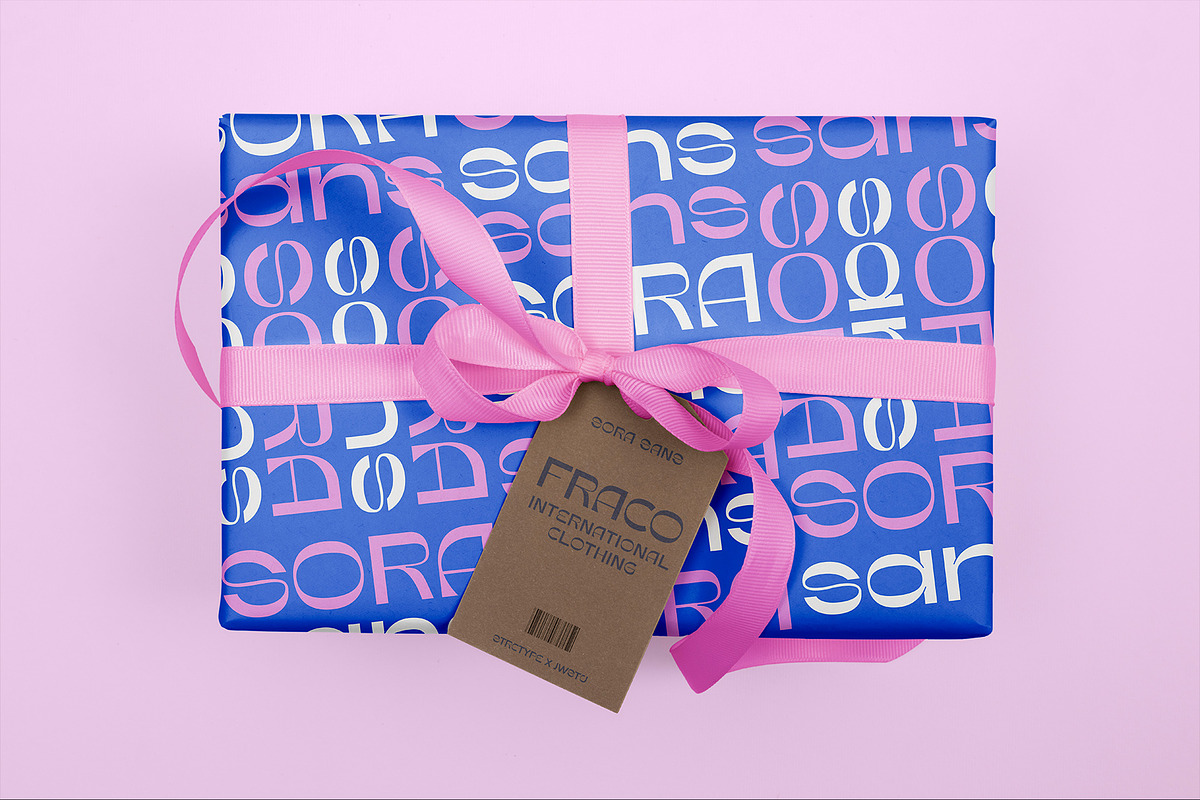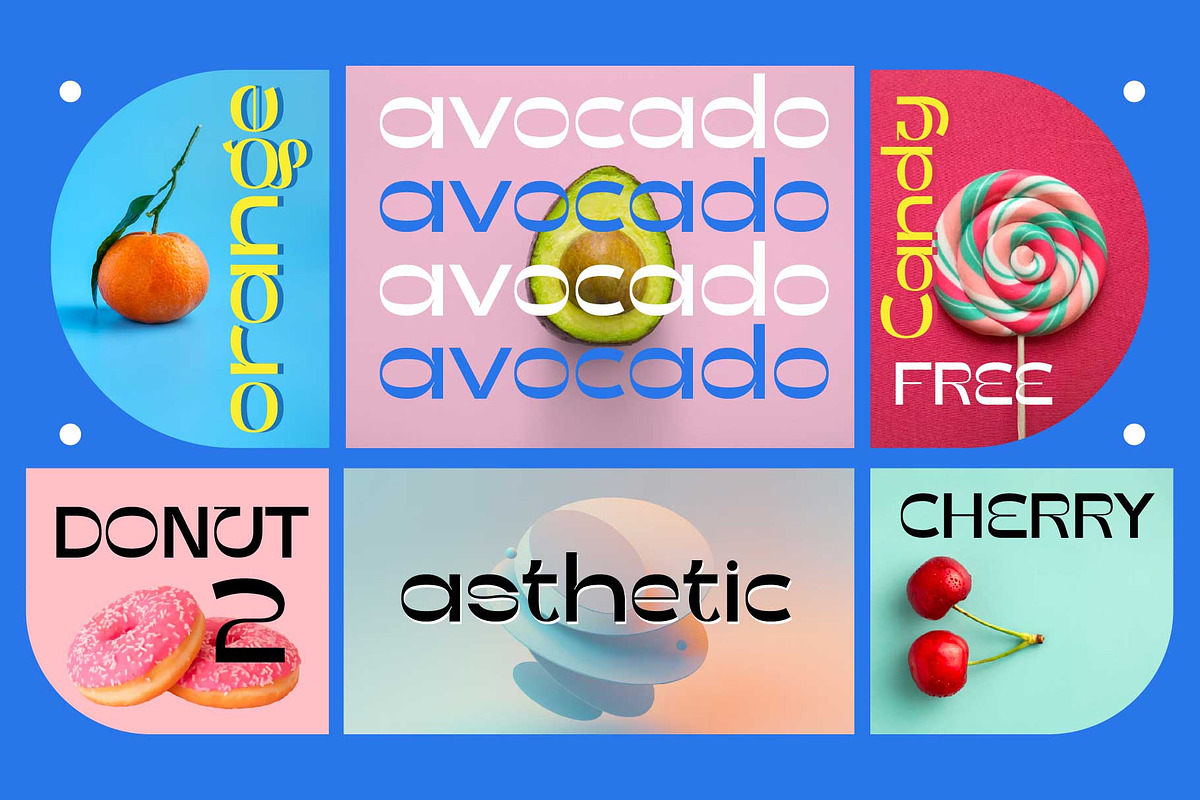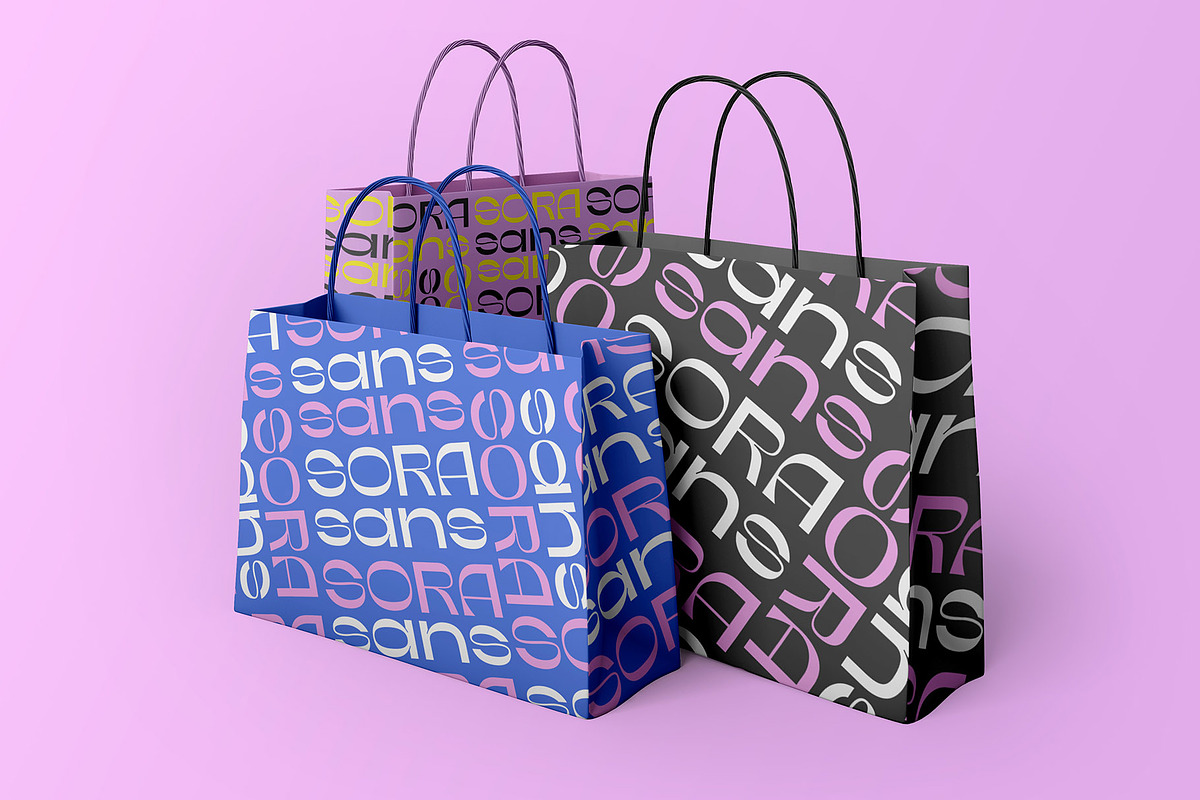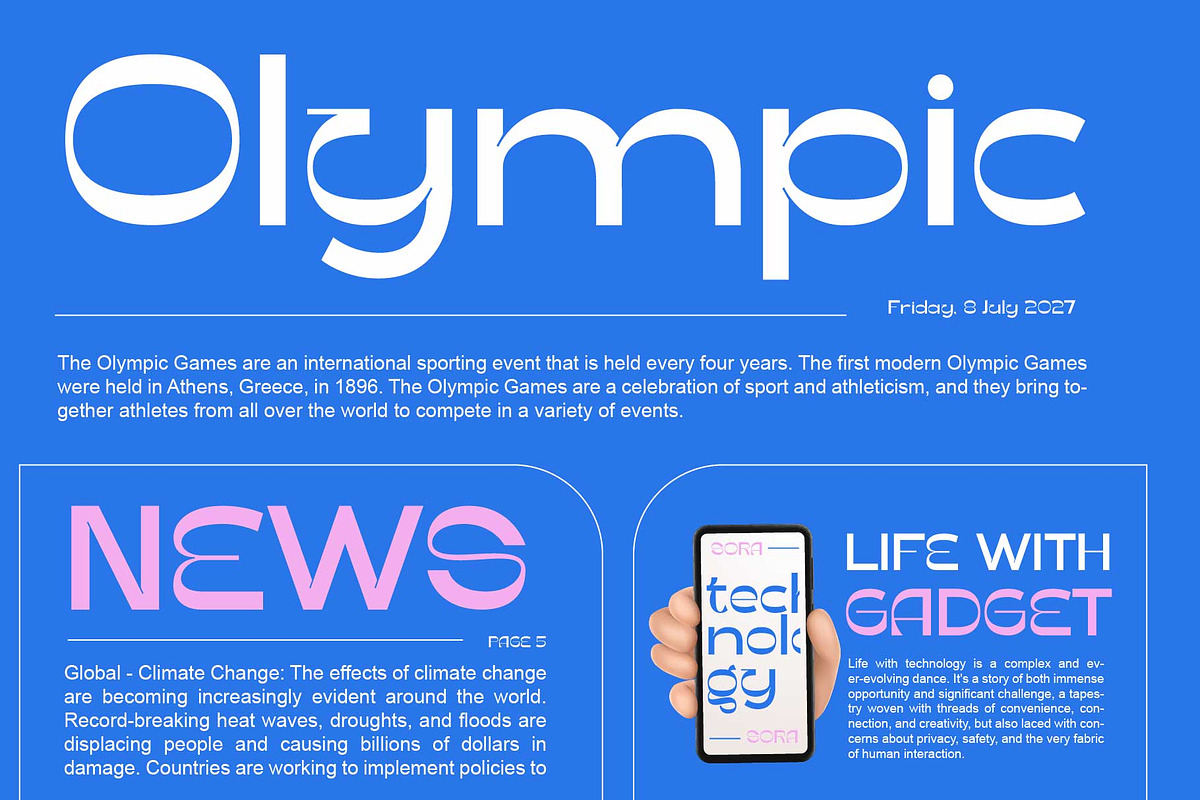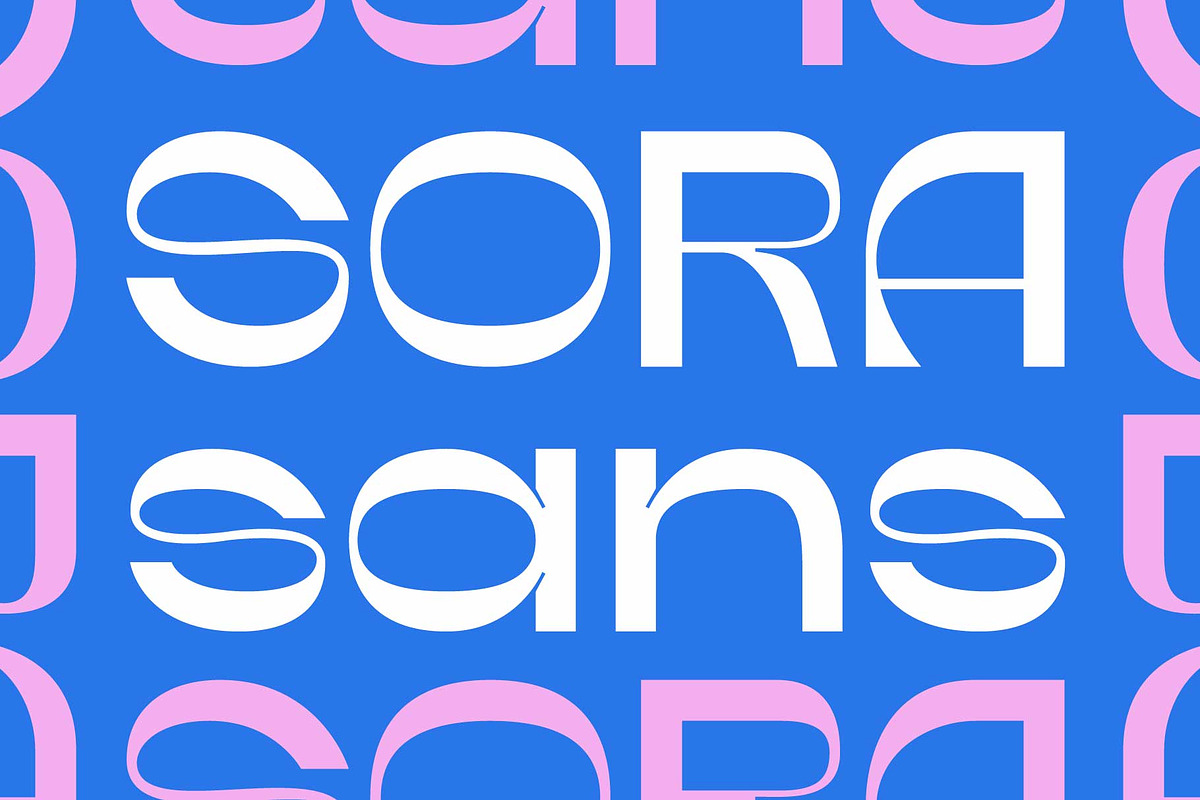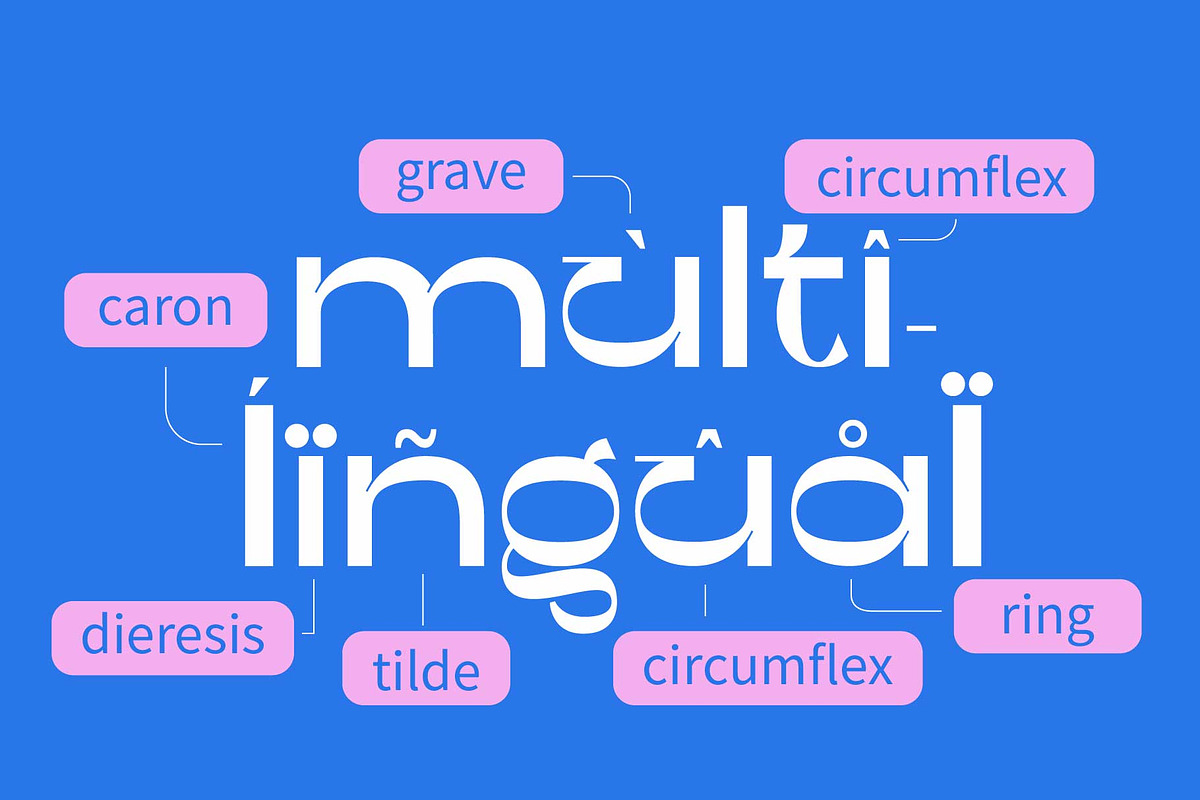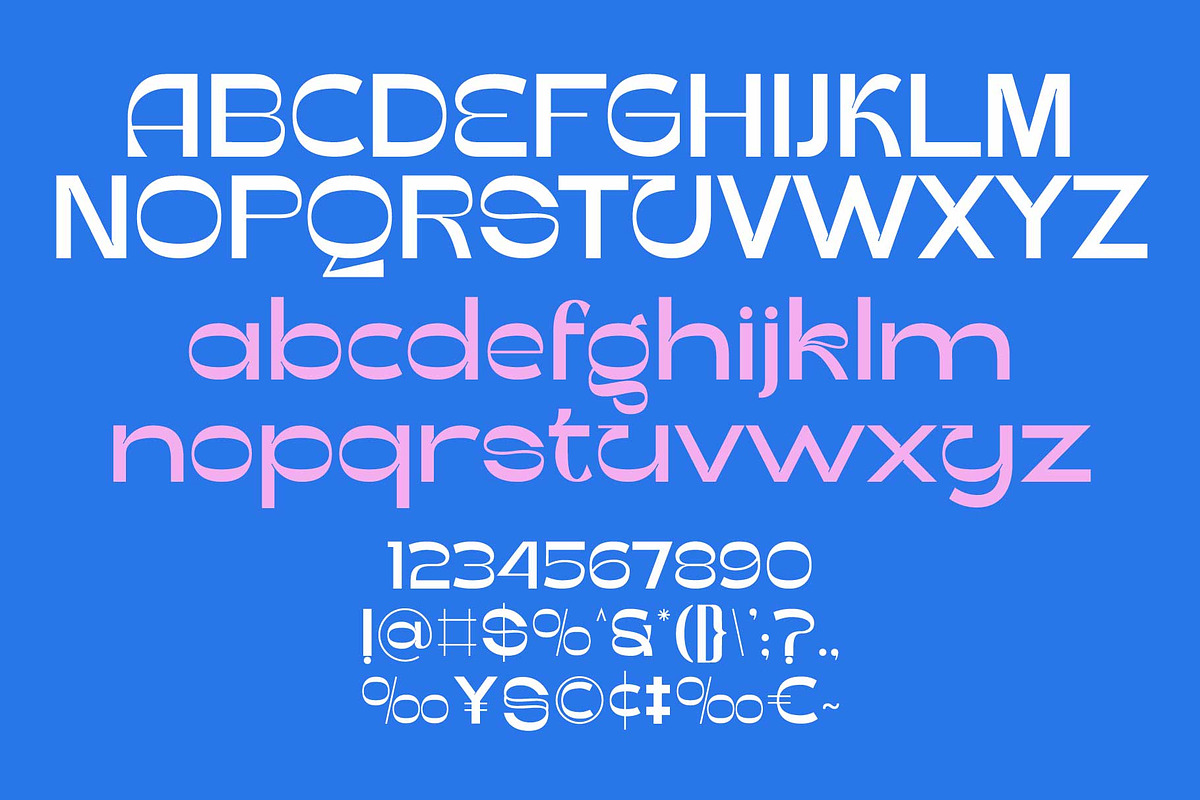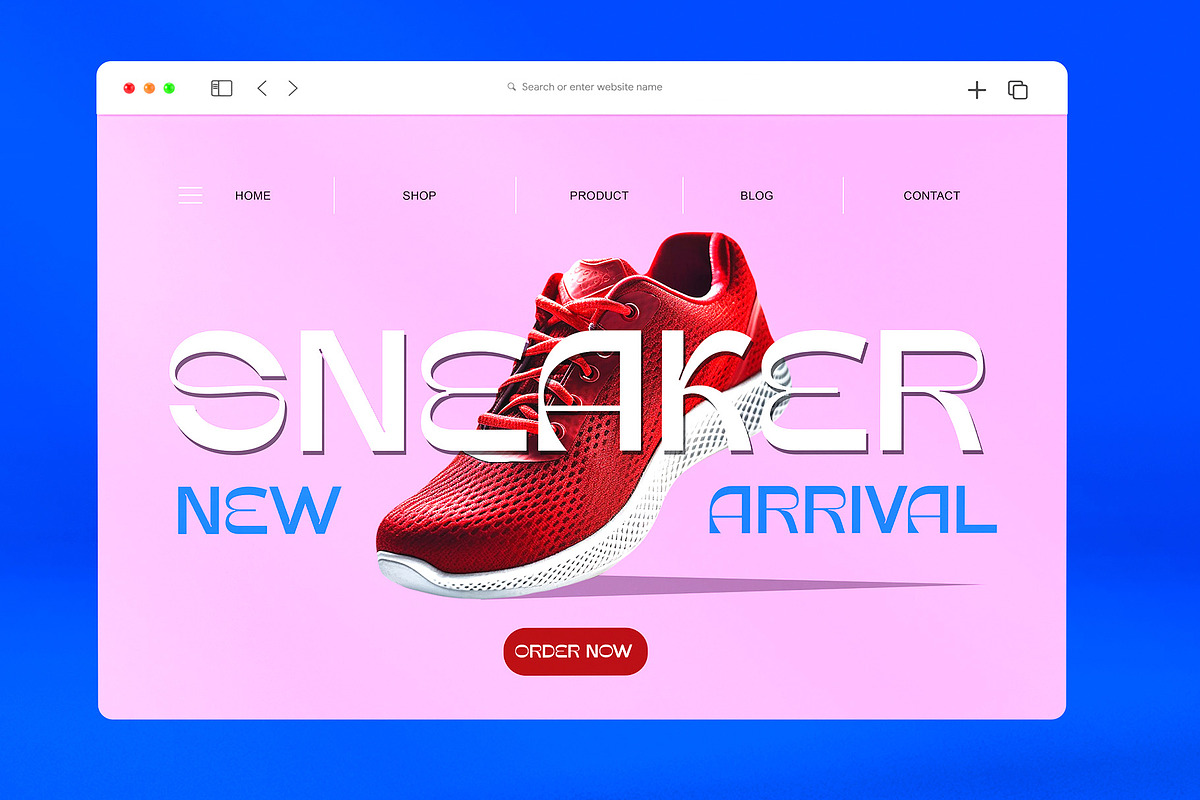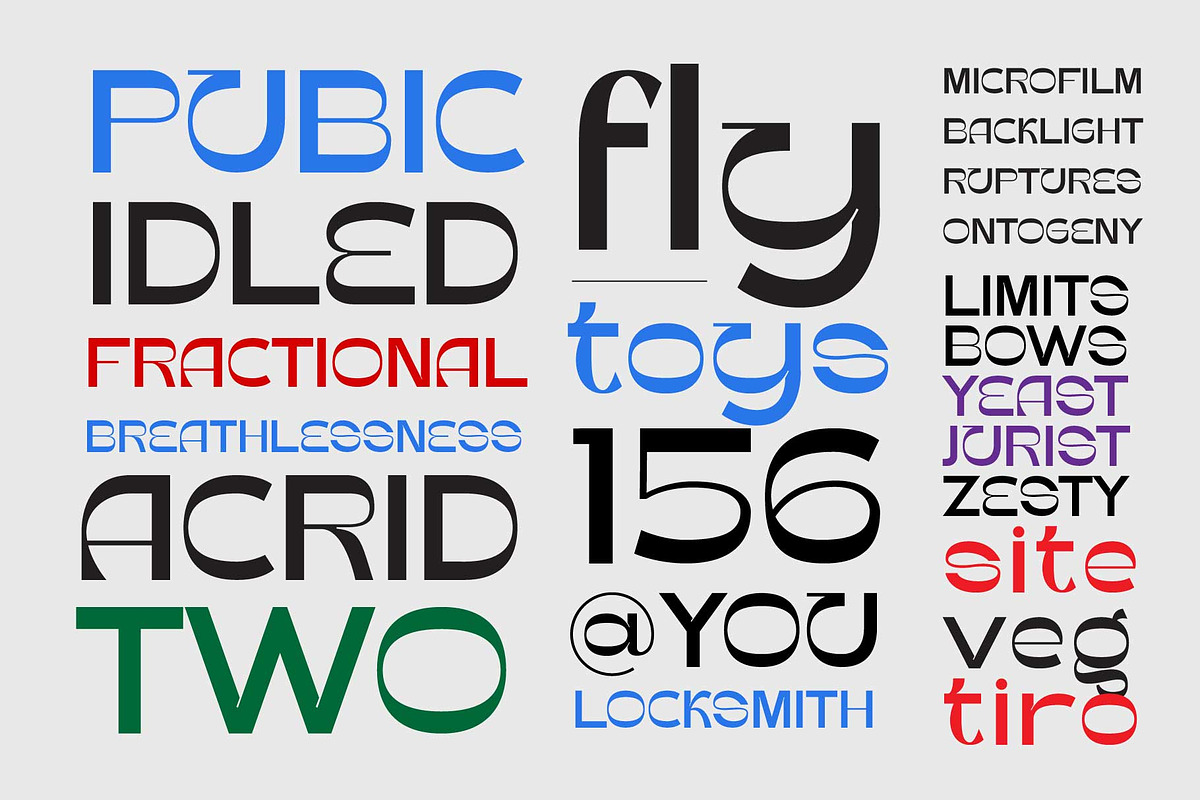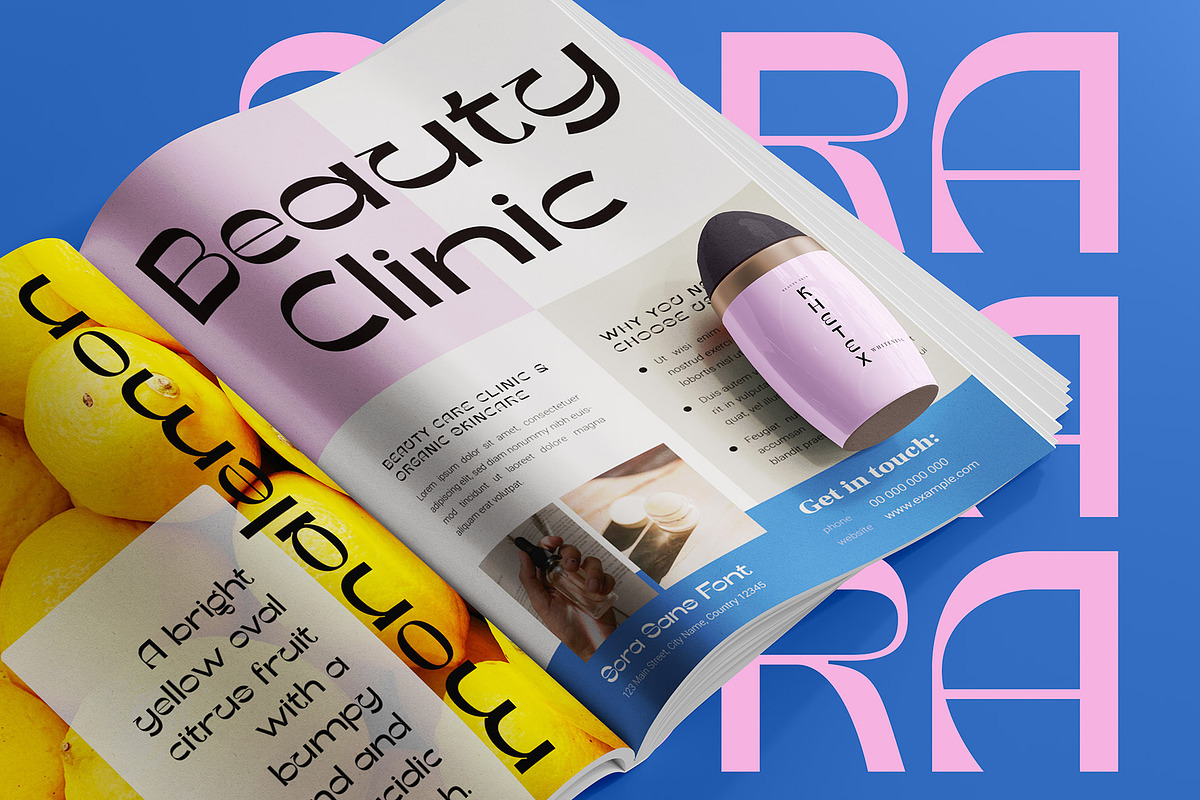
Sora Sans | Modern Fancy Sans Serif
Sora Sans is modern and minimalist sans serif, hidden among the straight lines and corporate confidence is a hint of roguish charm and character. The combination of minimal and ungeometric elements renders a modern design, Integral lends your words a strong voice while being lot of fun to use. This is irreproachable sans serif to diversify your headlines, social media, titling, larger-format print, branding visual identity, poster, logo, magazines anywhere else you want to be noticed.